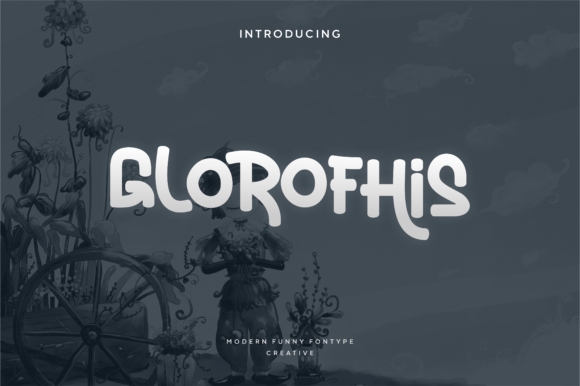
Behold, the Glorofhis Font, a typographic masterpiece that will elevate your words beyond the ordinary and into the realm of the extraordinary. Prepare to dazzle your audience with this modern display font, meticulously crafted to turn heads and make an indelible impression.
Journey through a myriad of creative possibilities with Glorofhis, the ultimate choice for designing captivating letterheads, titles, and stationery. Its urban-inspired style exudes a raw and edgy charm that will set your designs apart from the mundane.
Indulge in the versatility of Glorofhis, a font that seamlessly adapts to a symphony of projects. Whether you seek to craft a resume that commands attention or embark on a branding journey, Glorofhis will be your steadfast companion. Its captivating curves and bold strokes will breathe life into your words, leaving a lasting impact on all who encounter them.
Elevate your designs to new heights with Glorofhis. Its impeccable craftsmanship and attention to detail will transform your creations into works of art. Experience the joy of seamlessly weaving together words and visuals, creating a cohesive and captivating narrative that will leave your audience spellbound.
Embrace the allure of Glorofhis today and embark on a creative odyssey that knows no bounds. Unleash your imagination and witness the transformation of your designs into captivating masterpieces. Glorofhis awaits, ready to ignite your creativity and propel your projects to unprecedented heights.